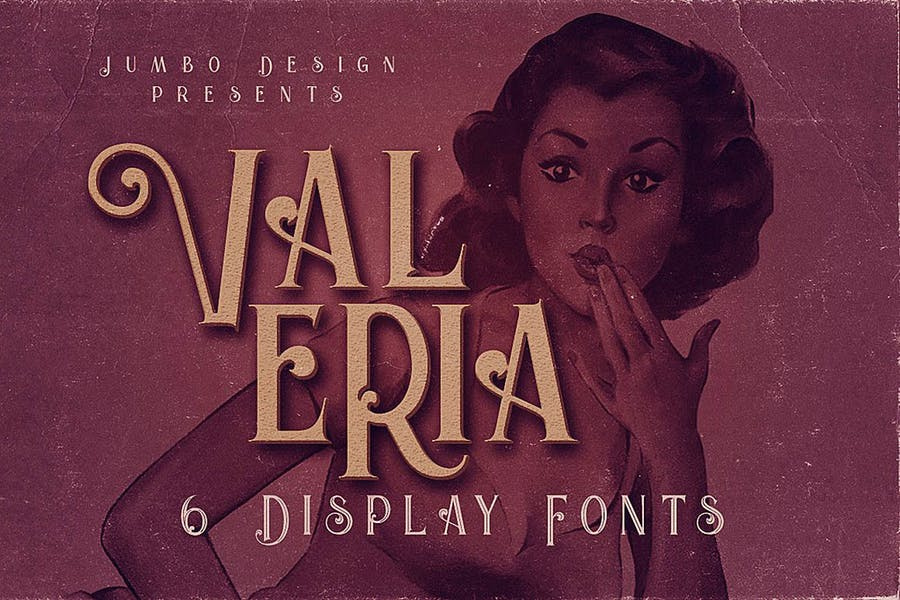
Valeria - Display Font
Valeria - Display Font is perfect for luxury fashion branding, high-end jewelry packaging, premium cosmetics identity, sophisticated magazine layouts, elegant wedding invitations, upscale boutique signage, luxury hotel materials, fine dining restaurant menus, exclusive event stationery, premium beauty brands, refined corporate identity, and graceful storytelling applications.
Valeria - Display Font is exciting because it embodies feminine sophistication and timeless elegance with gracefully refined letterforms that seem to flow like silk across the page, perfectly capturing the essence of modern luxury while maintaining the classic beauty that defines truly exceptional design and sophisticated brand experiences.
The Valeria - Display Font family includes elegant variations: Regular, Bold, Light, Thin, Medium, and Italic styles, providing designers with a complete luxury typography system to create sophisticated compositions that celebrate feminine grace and the refined elegance that defines premium brand experiences.
Embrace sophisticated elegance with Valeria - Display Font Free Download. This exquisitely crafted display typeface brings refined beauty and feminine sophistication to contemporary design projects. Whether you're creating luxury brand identities, designing premium event materials, or developing high-end marketing campaigns, Valeria - Display Font delivers unmatched elegance and sophisticated appeal that captivates discerning audiences.
The font's gracefully designed letterforms reflect the perfect balance between contemporary style and timeless elegance, with flowing curves and refined proportions that suggest luxury, sophistication, and the effortless grace that defines premium brand experiences and feminine beauty.
Valeria - Display Font excels in creating distinguished brand experiences for businesses in luxury, fashion, and premium lifestyle sectors. Its sophisticated presence transforms ordinary communications into elegant statements that resonate with audiences seeking refinement, quality, and the sophisticated beauty that defines truly exceptional experiences.
Professional designers treasure how Valeria - Display Font brings instant luxury credibility to premium projects while maintaining excellent readability and versatile functionality. The comprehensive weight range ensures optimal performance from intimate luxury packaging to grand fashion show displays, maintaining consistent elegance and sophisticated appeal.
This remarkable typeface brings authentic luxury elegance to high-end ventures and premium service providers. From luxury fashion houses to exclusive spas, Valeria - Display Font creates lasting impressions that communicate sophistication, quality, and the refined beauty that defines premium brand experiences and feminine elegance.